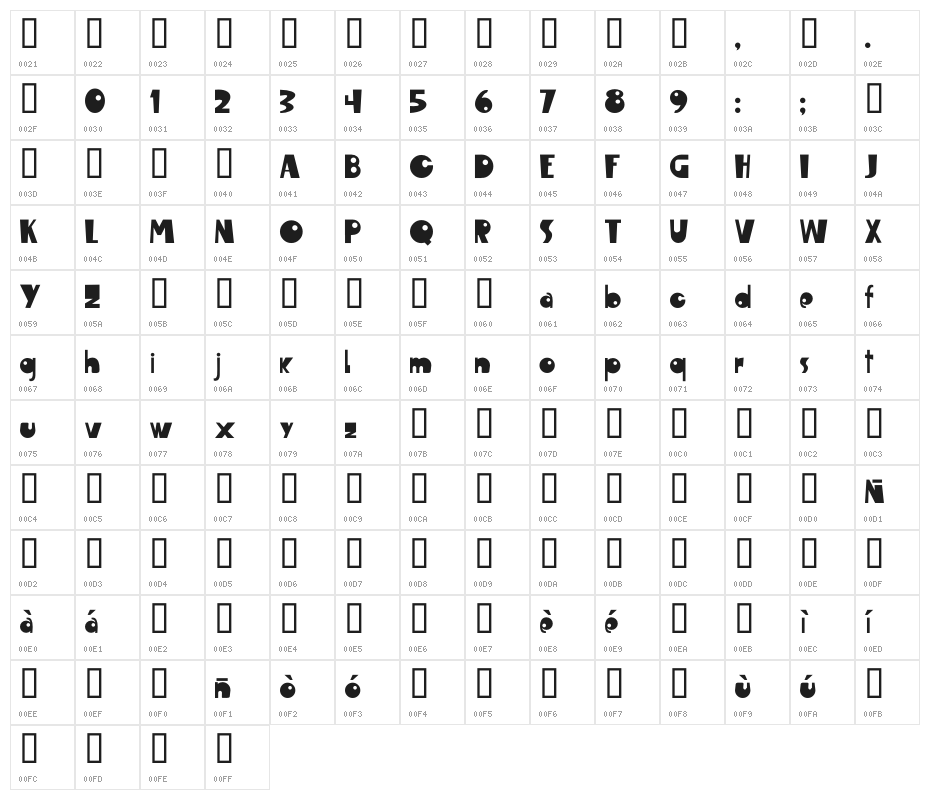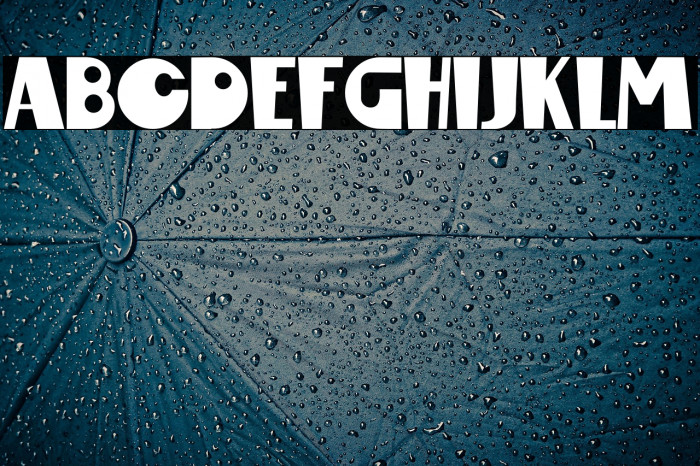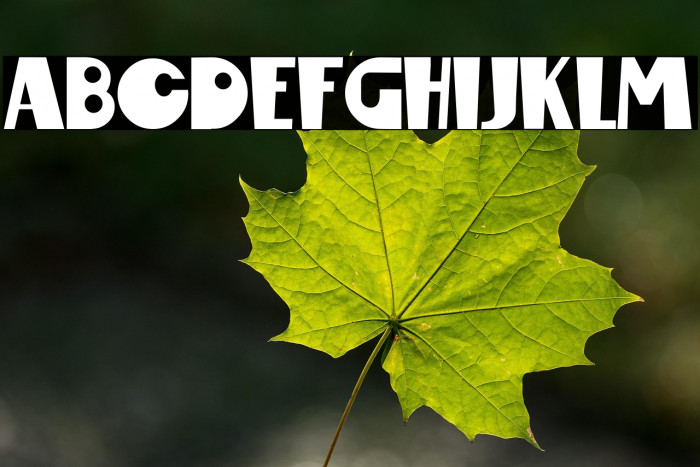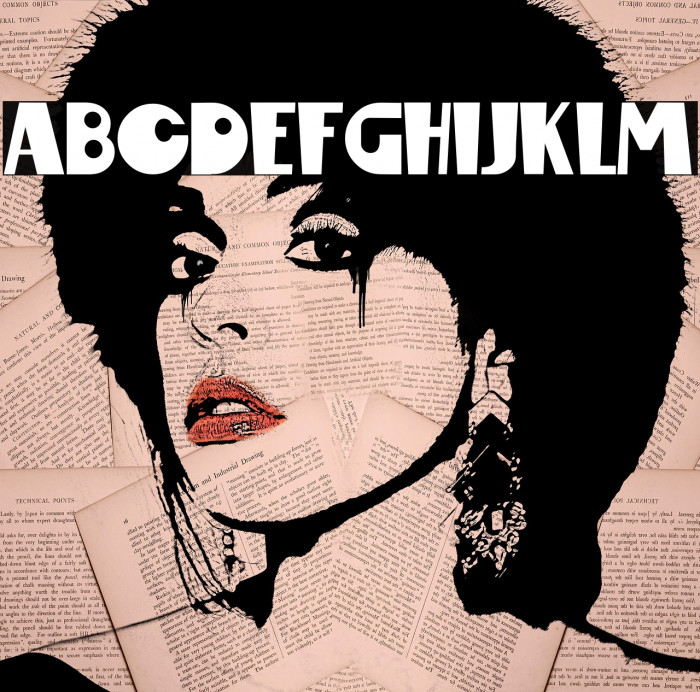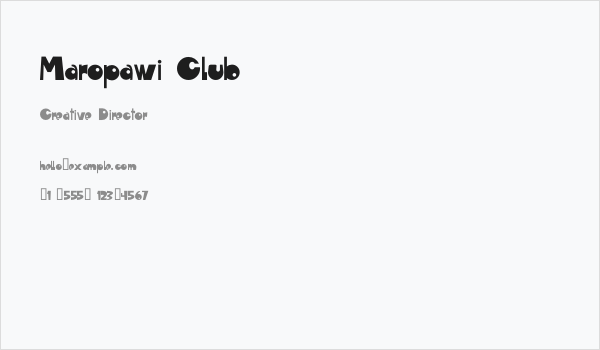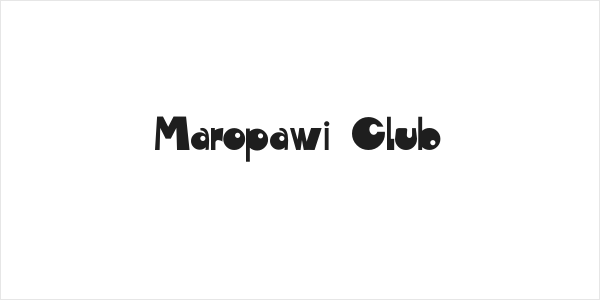
Maropawi Club Font
Maropawi Club Description
This font features a bold and playful design with a distinct geometric influence. The uppercase letters are characterized by their wide, blocky shapes and sharp angles, giving them a strong presence. The lowercase letters maintain a similar style but with a slightly softer, more rounded appearance. The numerals are bold and consistent with the overall geometric theme. Special characters are designed to match the boldness and style of the alphabet, ensuring a cohesive look across all text. This font is ideal for projects that require a fun and eye-catching display.
| Overall Style | Playful, Modern |
| Proposed Projects | Ideal for posters, logos, children's books, and any project needing a fun, bold typeface. |